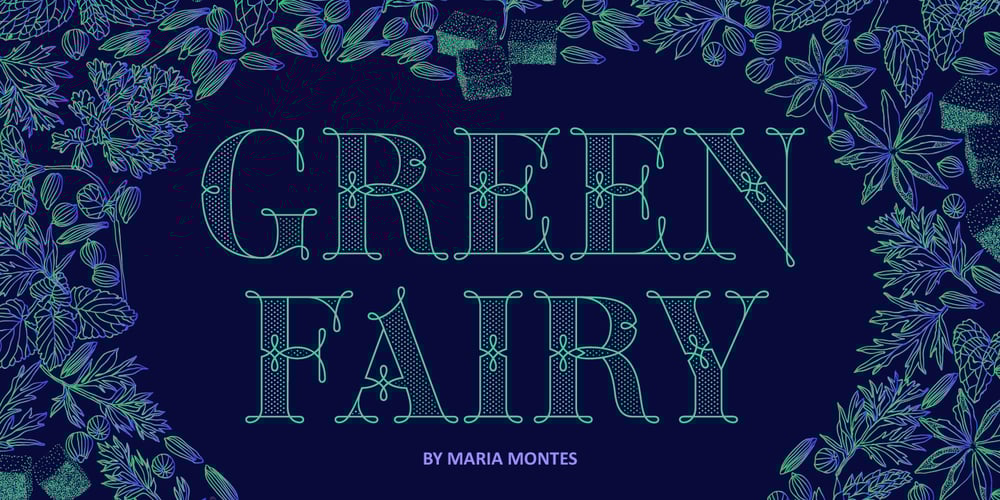
Green Fairy
Green Fairy font
Green Fairy Font Family was designed by Maria Montes and published by Maria Montes. Green Fairy contains 7 styles and family package options. Green Fairy is a chromatic font family highly ornamented for display purposes. Green Fairy’s characters have been specifically designed to accommodate its loops and ornaments following a modern typeface structure. Green Fairy has four chromatic weights: 1. Green Fairy Outline 2. Green Fairy Dots 3. Green Fairy Stencil 4. Green Fairy Full The outline weight has been created as the base or structure for the other weights. You can combine these weights as well as add colours to obtain multiple effects and type styles. Green Fairy has also three combined weights (combos) to simplify your work flow, for these occasions when you only want to use one single colour in your font: 5. Green Fairy Dots Combo 6. Green Fairy Stencil Combo 7. Green Fairy Full Combo GREEN FAIRY ORIGINS The origin of this typeface is the lettering I designed in October 2015 as part of my illustrated cocktail artwork called “Absinthe. La Fée Verte (The Green Fairy)”. Originally, this lettering only featured eight letters “AB·SINTHE” vector drawn in Illustrator. Right after creating the full-colour artwork, I designed a fountain-letterpress print version of it, in collaboration with Ladies of Letters, A.K.A. Carla Hackett and Amy Constable from Saint Gertrude Fine Printing. At the beginning of 2016 –and thanks to the project @36daysoftype– I found the motivation, and most importantly the deadline, to draw the rest of the twenty-six letters of the uppercase alphabet using Illustrator. I started 2017 having my first two calligraphy courses sold out, so I took this amazing opportunity to devote myself to Green Fairy for a few months. In February 2017, I purchased the font software Glyphs and I started to re-draw all twenty-six letters of the uppercase alphabet again. PRODUCTION PROCESS Green Fairy started being one weight, but quickly turned into a layered/chromatic font. Things were going more or less fine till I arrived to the Dots weight: 1) I started drawing squares following a grid; 2) Then, the squares turned into diamonds following the same grid; 3) Then, the grid wasn’t working so well on the round letters so I tried randomising the position of the diamonds but it didn’t work; 4) So I went back to the grid, and this time scaled down the size of the diamonds creating a visual half-tone effect. I spent over four weeks working on the Dots weight and I felt like I was in the middle of a very long tunnel and I couldn’t see the light at the end. I encountered many other problems along the way but by June 2017, I felt I was back on track again. I kept working, tweaking, re-drawing and re-adjusting, and then the diacritics came on board… And then more re-drawing, re-tweaking, re-adjusting and then numbers… And then spacing, symbols, and currencies… And then more spacing, kerning, contextual kerning for triplets… In September 2017 I told myself “that’s it, I’m going to finish it now!” But guess what? More re-tweaking, testing, hinting, testing, rendering, testing… For those of you not familiarized with typeface design, it is extremely time consuming and it requires a lot of hard work, focus and determination. This project could not have been possible without the help of these generous professionals: Jose Manuel Urós, typeface designer based in Barcelona and my teacher twice in the past; Jamie Clarke, freelance letterer and typeface designer who has released a couple of chromatic fonts recently; Troy Leinster, Australian full-time typeface designer living and working in New York City; Noe Blanco, full-time typeface designer and hinting specialist based in Catalonia; And Nicole Phillips, typographer currently relocating from Australia to New Zealand. To all of you: THANK YOU VERY MUCH!